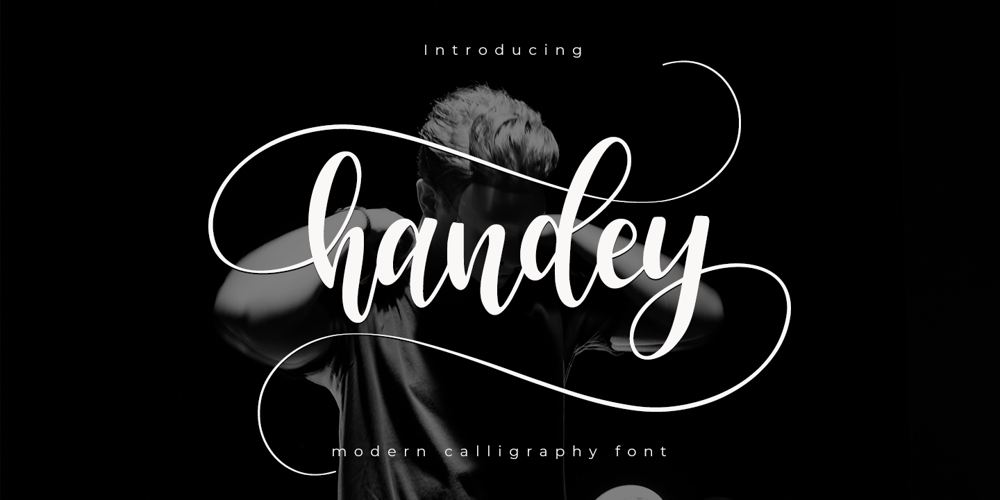
Handey Font Family was designed by Muhammad Zaini and published by Cocodesign. Handey contains 1 styles and family package options. harley Modern Calligraphy. This font was designed by handwriting, and it has a modern and unique forms of calligraphy, the writing style is very natural. harley has a very unique style of calligraphy, it is very suitable for use in the work of modern design.The Features of this fonts is: